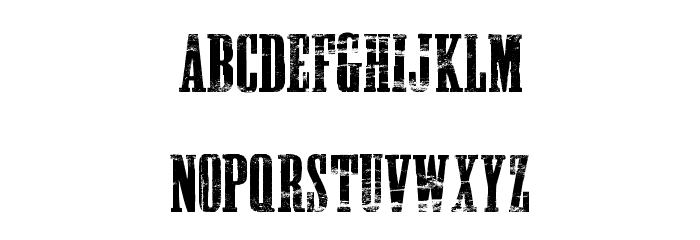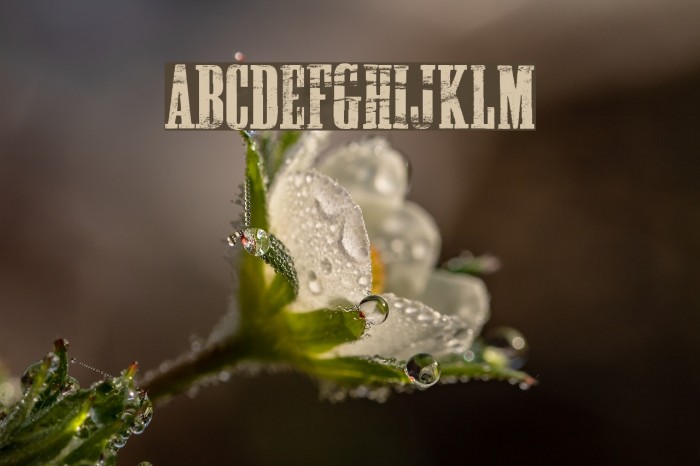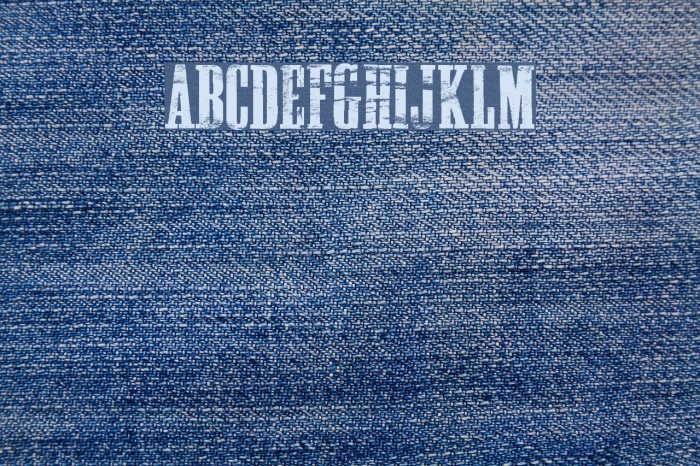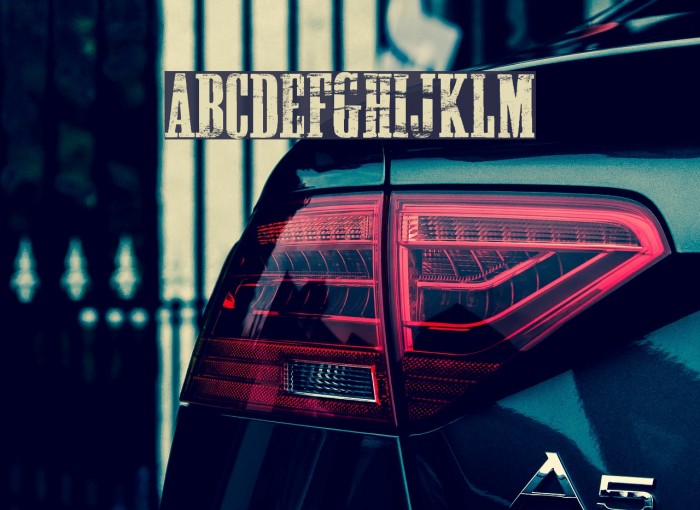
GONNA GETHA PERSONAL USE Regular Font
This font features a bold, distressed style with a rugged and textured appearance. The uppercase letters are prominent and convey a sense of strength and impact, making it ideal for attention-grabbing designs. The distressed effect gives it a vintage, worn look, adding character and depth to the text. The font maintains a consistent weight throughout, with each letter exhibiting a unique pattern of distress, enhancing its visual interest. The spacing between characters is normal, allowing for readability while maintaining its bold presence.
A bold, distressed font with a rugged, vintage appearance.
- Proposed Projects: Ideal for posters, album covers, branding for outdoor or adventure-themed products, and any design requiring a strong, vintage aesthetic.
- Overall Style: Vintage